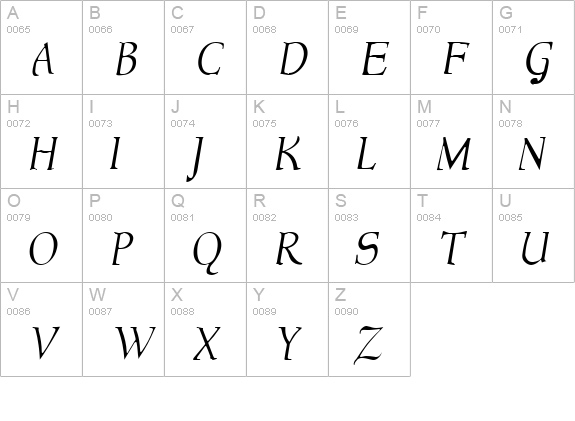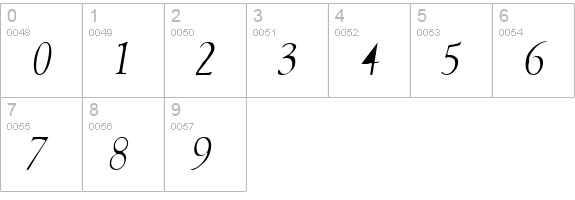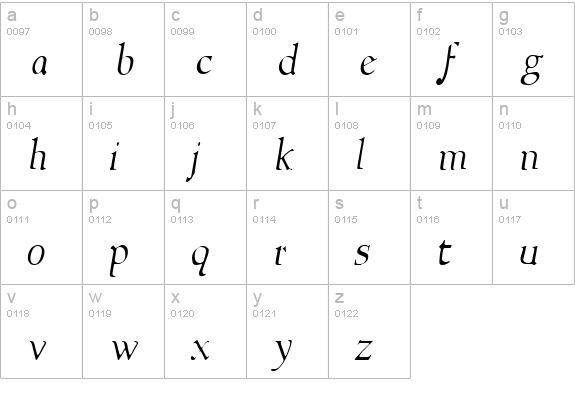
NewStyleLight Italic Font Details
NewStyleLight Italic is a distinctive, italic variant in the NewStyleLight typeface family \xE2\x80\x94 well suited to design and typography projects.
Introducing NewStyleLight Italic font - a sleek and modern typeface that effortlessly exudes elegance and sophistication. Its delicate and stylish curves add a touch of class to any design project, making it perfect for branding, editorial work, and more. The italic style of NewStyleLight enhances its uniqueness and versatility, making it a standout choice for those seeking a refined and contemporary look. What's even better is that NewStyleLight Italic font is completely free to download at FontsMarket.com! This means you can easily access this stunning typeface and incorporate it into your projects without any cost. So why wait? Elevate your designs with NewStyleLight Italic font today and make a lasting impression with its timeless appeal.